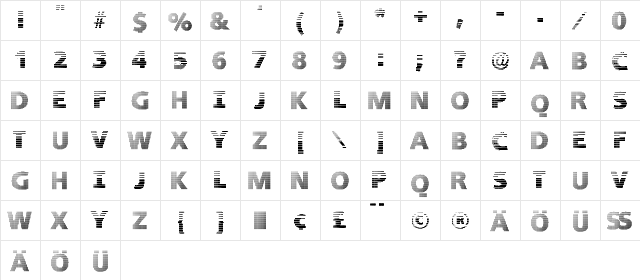
BlackWhiteGridsB Regular
Design Context for BlackWhiteGridsB Typeface
BlackWhiteGridsB is a composed and adaptable typeface that performs quietly and consistently across a wide range of design contexts.